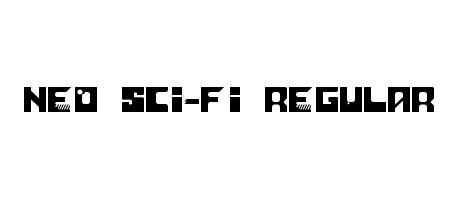
Neo Sci-Fi
By Bryan Augusto
Neo Sci-Fi Regular is a bold, futuristic display typeface. Its blocky, geometric letterforms evoke a retro-futuristic aesthetic, reminiscent of 80s video games or science fiction movie posters. The slightly irregular edges and variations in letter weight add a touch of gritty texture to the otherwise clean design, enhancing its sci-fi feel.